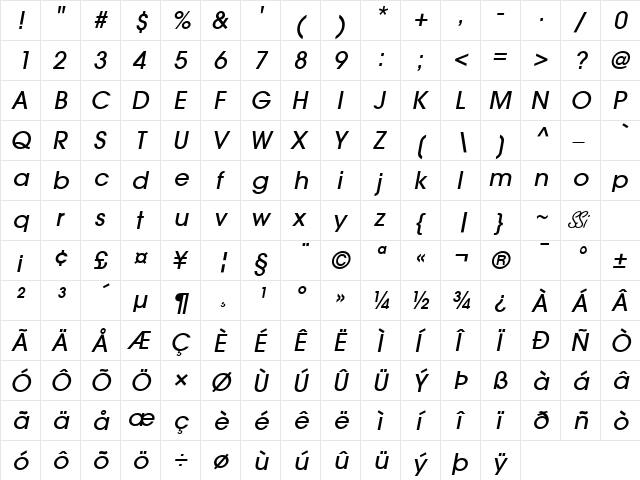
Trendex Light SSi Medium Italic
Design Context for Trendex Light SSi Typeface
Trendex Light SSi offers clean, dependable letterforms without strong stylistic allegiance, making it a practical choice for designers who need flexibility. The slanted form adds forward momentum and visual energy. The delicate stroke weight brings airiness and refinement to layouts.